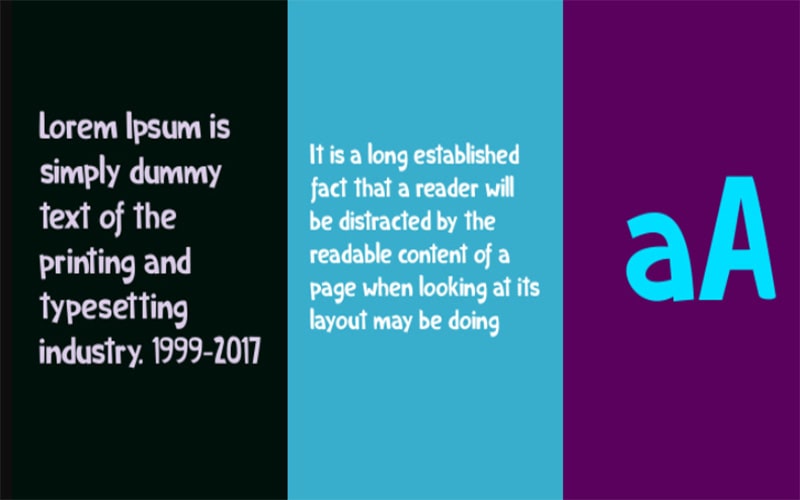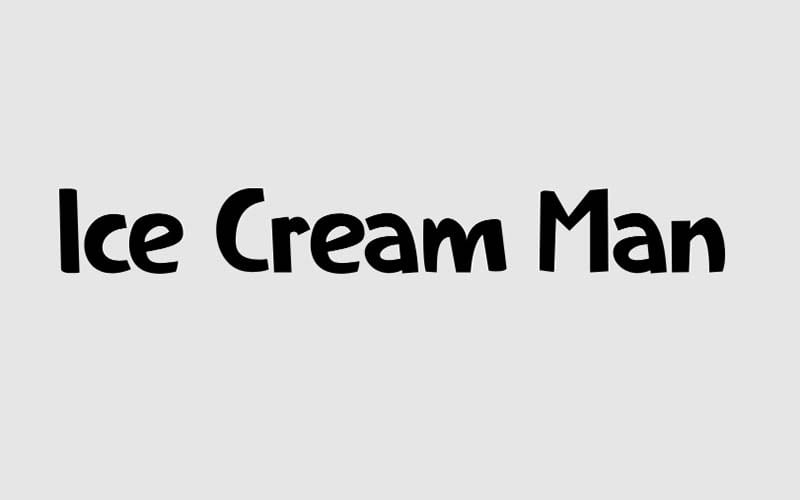
Here we are talking about another casual typeface that comes from the amazing font designer David Kerkhoff. His name is Ice Cream Man Font. This is a cartoon and fancy typeface that has a comic style.
This display typeface family can be found in a single weight and it consists of 135 characters. The character of this Font is presented with a unique technical arrangement with bold letters and charming edges.
This awesome font can be used for many purposes such as animated movie titles, book covers, cartoon storybooks, banner designs, logo designs, brochure layouts, advertisements, kids’ bags, and much more.
Ice Cream Man Font
Many designers are looking forward to using this decorative typeface in their regular work. Let’s take a look at the pictures of the letter map attached to the article. To get an idea of what your text will look like.